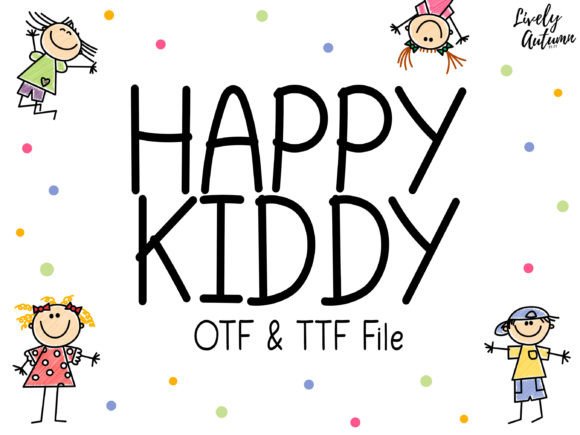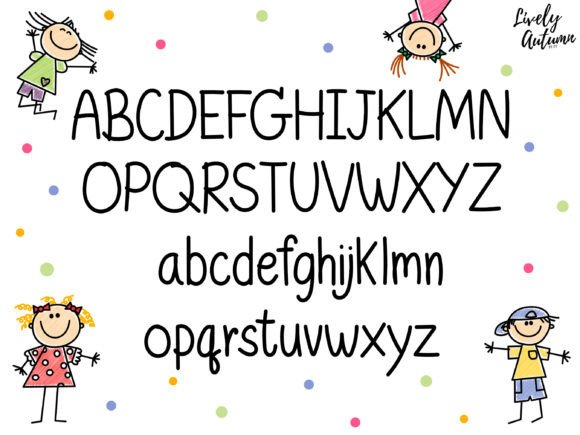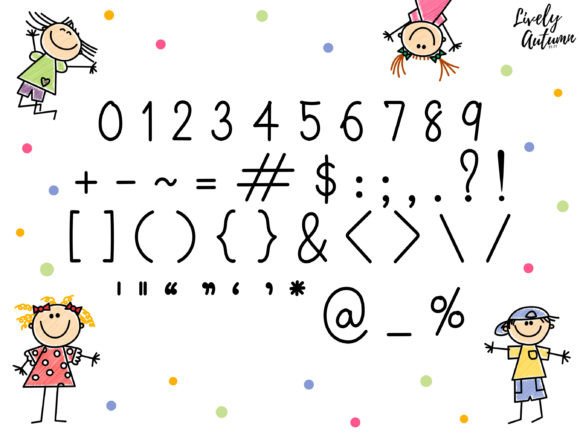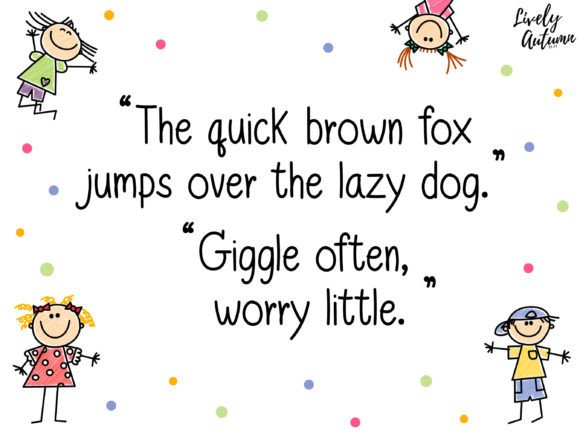
Happy Kiddy Font: A Playful Sans Serif Font for Cute DIY Projects
About the Happy Kiddy Font
The Happy Kiddy Font is here to transform your projects with its distinctive character and style. Happy Kiddy Font is a kid-written San Serif font. Perfect for your kid’s theme project, personal projects, and various projects. From invitations to posters, social media graphics, journals, and much more.
Its playful, rounded forms make Happy Kiddy Font ideal for children’s books, greeting cards, and branding for businesses targeting a young audience. It works well in headlines, short bursts of text, and playful social media graphics. However, its informal nature makes it unsuitable for body text, long paragraphs, or applications requiring high readability, such as websites or UI elements.
Pair Happy Kiddy Font with a clean sans-serif like Open Sans for a balanced contrast, or a more structured serif like Merriweather for a touch of sophistication. For a more whimsical feel, consider pairing it with a playful script font such as Pacifico.
The font exudes a cheerful, friendly personality, perfectly suited for projects needing a lighthearted and approachable aesthetic. Avoid using it in contexts requiring seriousness or formality.
Happy Kiddy Font Usage Examples
Happy Kiddy Font Example